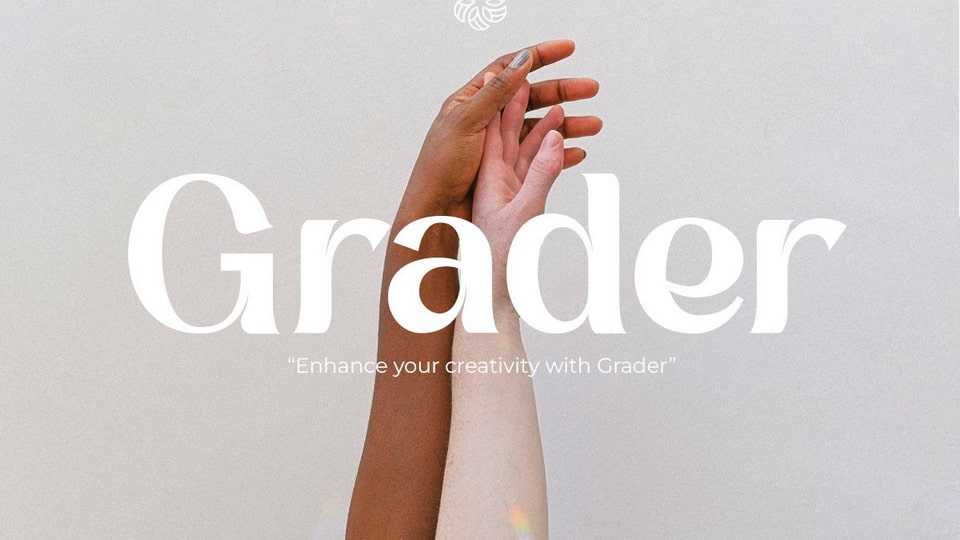
Download Grader font, a modern display typeface. This typeface is perfect for an headlines, classy editorial design, magazine, fashion brand, cosmetic brand.